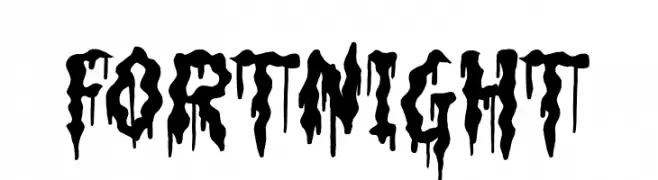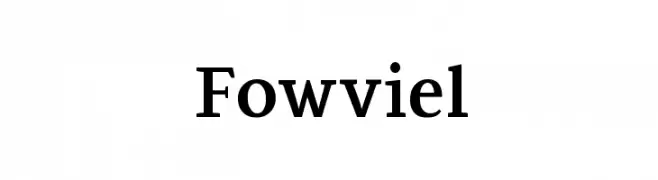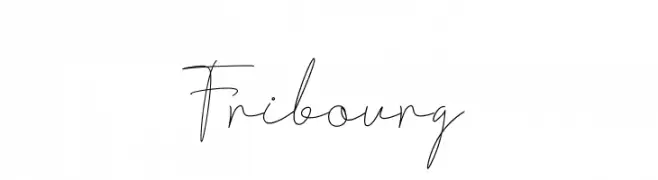
• Fortnight
A bold, dripping font with a spooky, liquid-like appearance.
• four pixel caps outline
• Fowviel
A classic serif font with strong strokes and balanced design.
• frame work
A bold, decorative font with intricate geometric patterns and industrial flair.
• frankenwiniefont
A bold, stitched-together font with a spooky, playful vibe.
• Freaks
A bold, decorative font with vintage flair and intricate detailing.
• Fribourg
A flowing, cursive font with elegant, elongated strokes and a sophisticated appearance.
• Friday October Twelve
A playful and casual font with rounded, smooth letterforms.
• Friday October Twelve Italic
A lively and dynamic italic font with smooth, flowing curves.